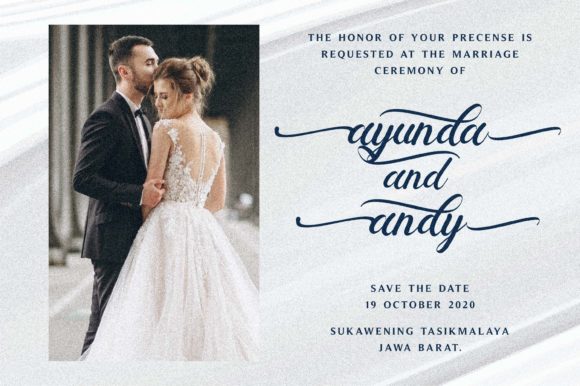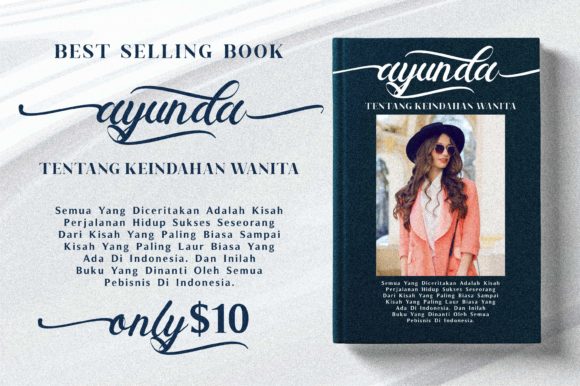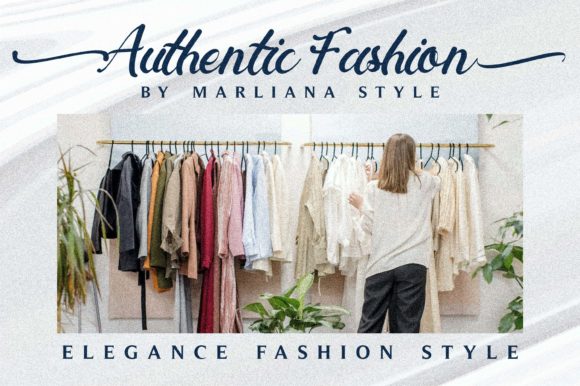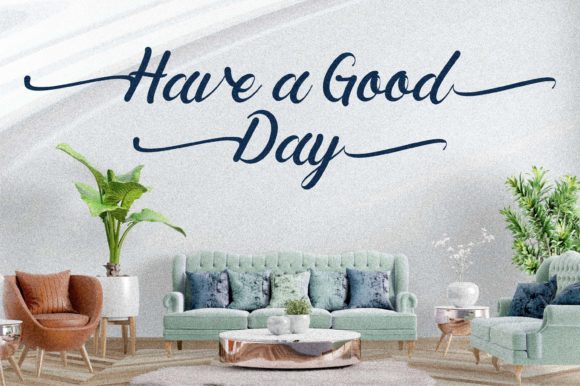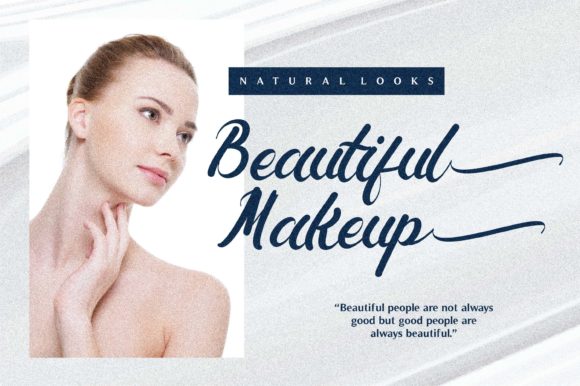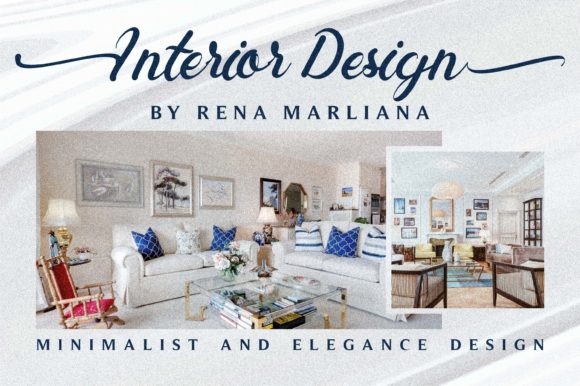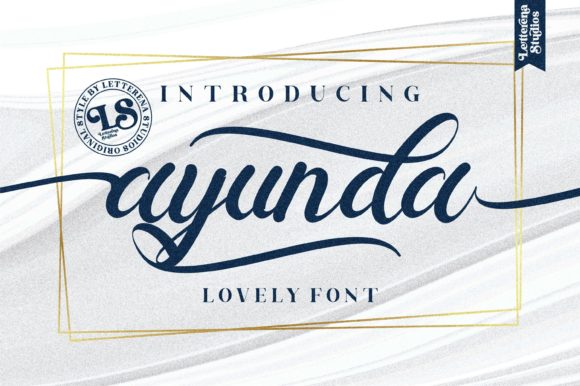
The Ayunda Font: A Bold and Beautiful Addition to Your Design Arsenal
I’ll never forget the time I was working on a wedding invitation project, and my client asked for a font that was both elegant and playful. I scoured the internet, tried out countless fonts, but nothing seemed quite right. That was until I stumbled upon the Ayunda font. Its bold, paintbrush handwritten style instantly captured my attention, and I knew I had found the perfect fit. In this article, I’ll share my experience with the Ayunda font, its features, and how to make the most of it in your designs.
An Honest Review of Ayunda Font
- ✨ Versatility: Ayunda’s style is incredibly versatile, making it perfect for a wide range of design projects, from wedding invitations to social media posts.
- ✅ PUA Encoding: The font is PUA encoded, which means you can easily access all the glyphs and swashes, giving you even more creative freedom.
- 💕 Aesthetic Appeal: The bold, paintbrush handwritten style is not only beautiful but also evokes a sense of warmth and personality.
While Ayunda is an amazing font, there are a few things to keep in mind:
- ⚠️ Legibility at Small Sizes: Due to its bold and artistic nature, Ayunda may not be the best choice for body text or small font sizes. It’s best used for headlines or titles.
- 🤔 Pairing with Other Fonts: As with any bold font, pairing Ayunda with other fonts can be a bit tricky. You’ll want to choose complementary fonts that don’t compete with Ayunda’s statement style.
A Practical Guide to Using Ayunda Font
The Story Behind Ayunda Font
The Ayunda font was designed with the intention of creating a bold, yet elegant handwritten font that would capture the essence of artistic expression. The designer aimed to create a font that would be versatile, easy to read, and perfect for a wide range of design projects. While the real story behind the font’s creation may be unknown, it’s clear that Ayunda has become a beloved font among designers and crafters.
A: PUA (Private Use Area) encoding allows font users to access a wide range of glyphs and swashes, making it easier to create unique and creative designs.
Q: Is Ayunda suitable for body text or small font sizes?
A: Due to its bold and artistic nature, Ayunda is best used for headlines or titles. It’s not recommended for body text or small font sizes.